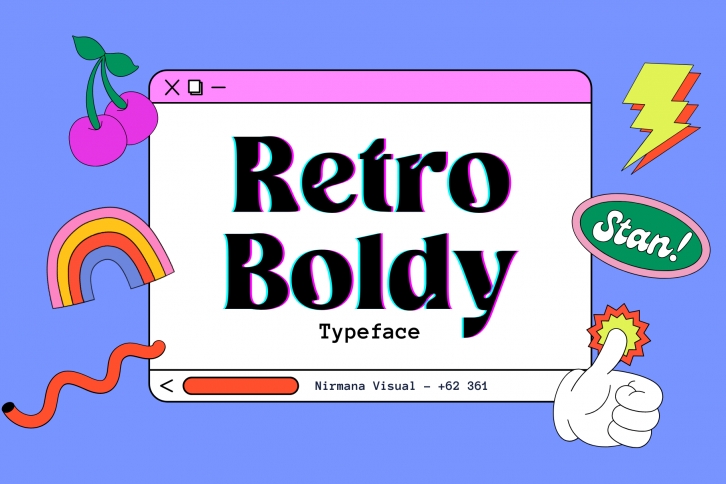
Retro Boldy is a cool and vintage styled serif font, inspired by the 90’s Era. It is perfect for product packaging, branding project, magazine covers, social media, wedding, or just used to express words above the background.